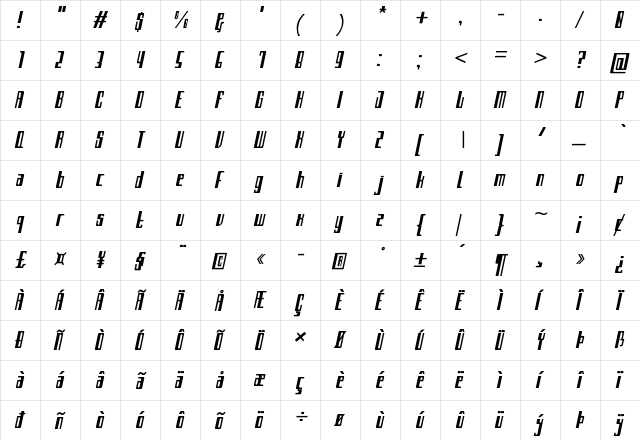
Archimate Italic Regular
Design Context for Archimate Italic Typeface
Archimate Italic takes a measured approach to typography — its balanced proportions and neutral character make it a reliable workhorse for both digital and print work. Its italic angle brings a sense of urgency and motion to the letterforms.
Pro Tip: Use Archimate Italic for emphasis, pull quotes, and subheadings where its slanted energy can add rhythm to the layout.